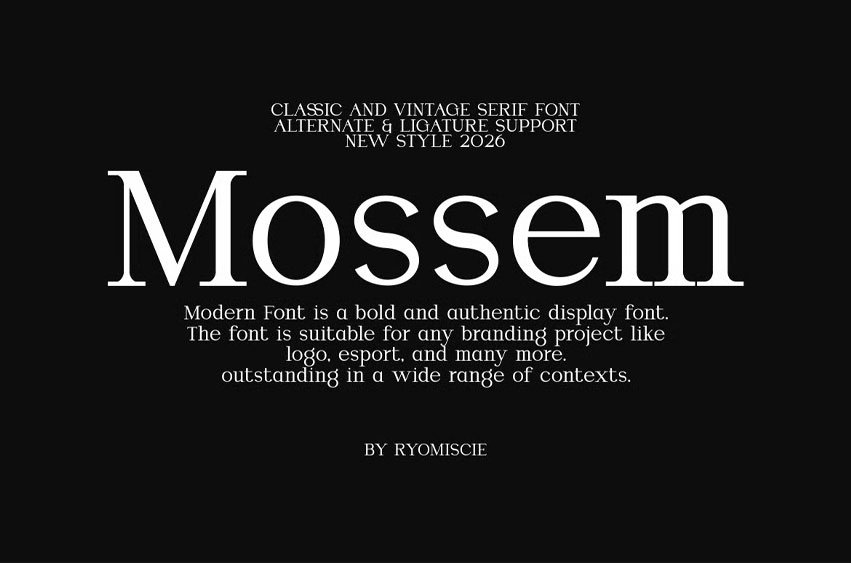
Mossem Font Classic And Vintage Serif Font is a bold and authentic display font.
The font is suitable for any branding project like logo, esport, and many more. outstanding in a wide range of contexts.
• Lowercase
• Uppercase Alternate
• Uppercase Ligature